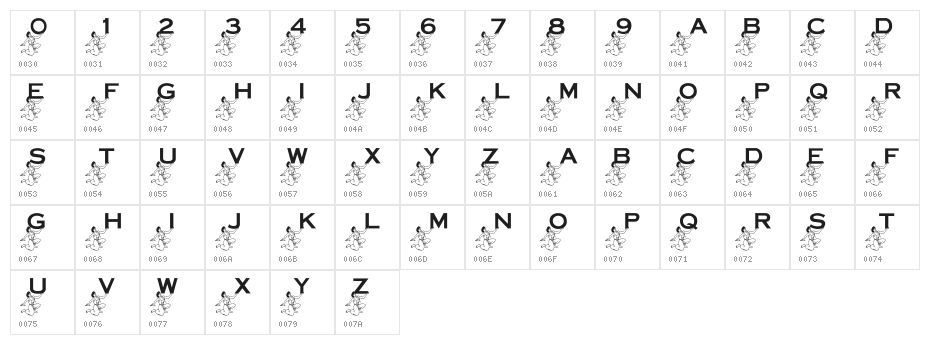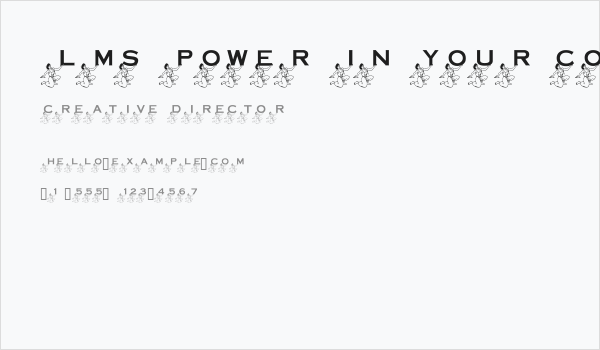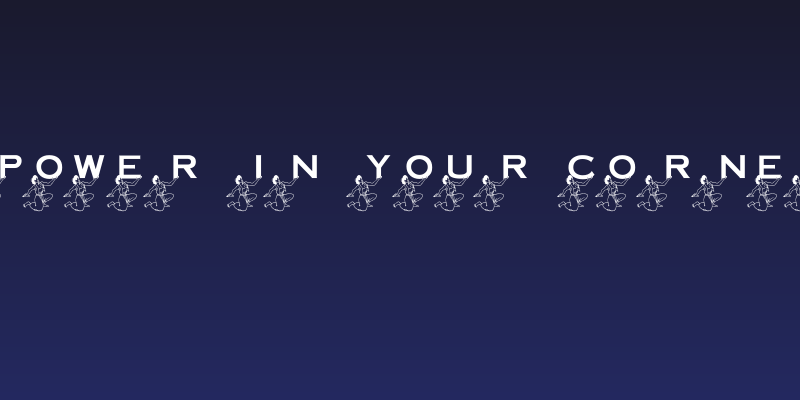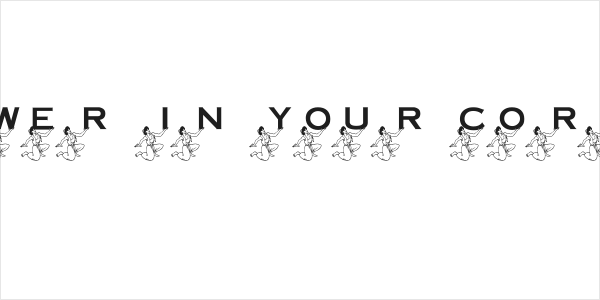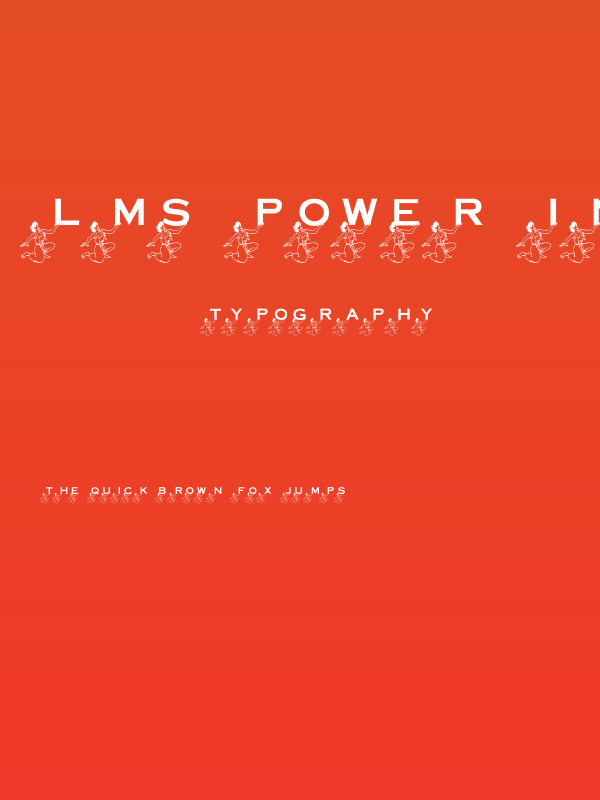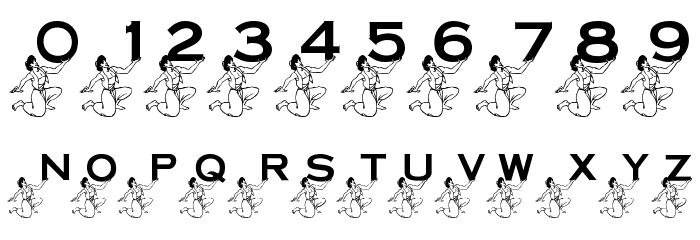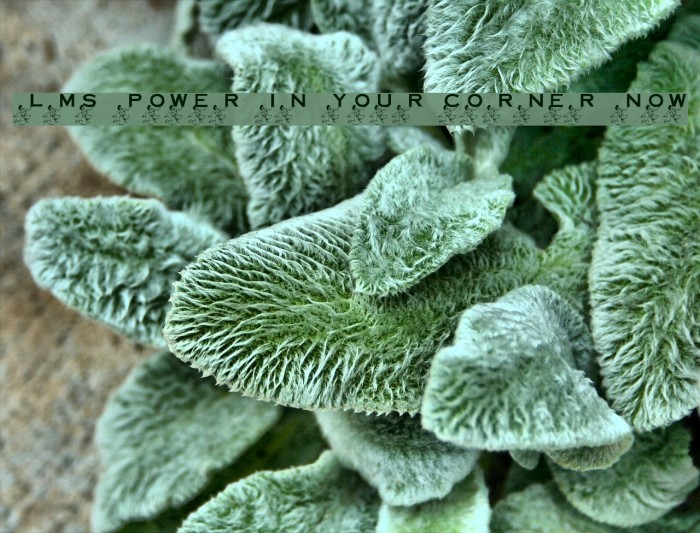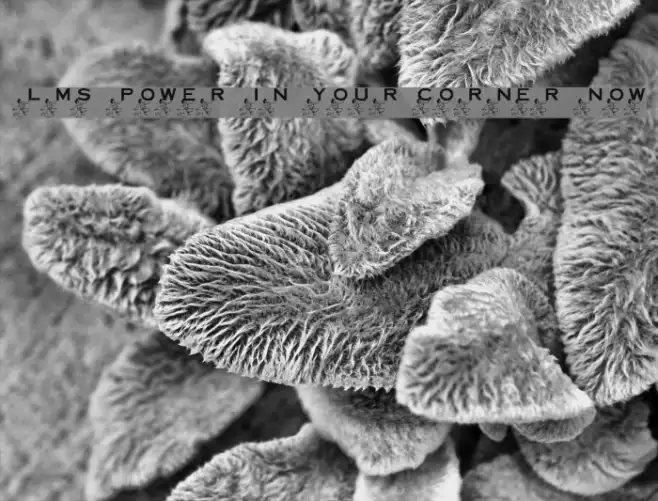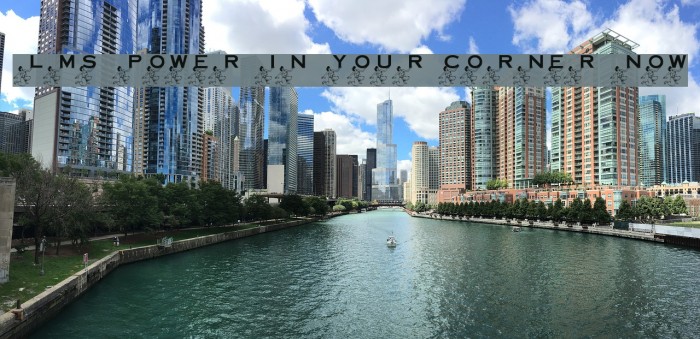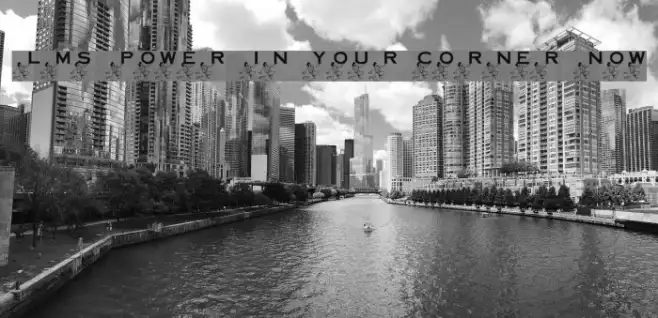
LMS Power In Your Corner Now Font
LMS Power In Your Corner Now Description
This font features a bold and modern sans-serif style with clean, geometric lines and uniform stroke widths. The uppercase letters are prominent and well-defined, making them highly legible. The lowercase letters maintain the same clarity and simplicity, ensuring consistency throughout the typeface. The numbers are equally bold and match the overall aesthetic, providing a cohesive look. Special characters are included, maintaining the same design principles. This font's straightforward design makes it versatile for various applications.
| Proposed Projects | Ideal for branding, advertising, headlines, and digital media projects. |